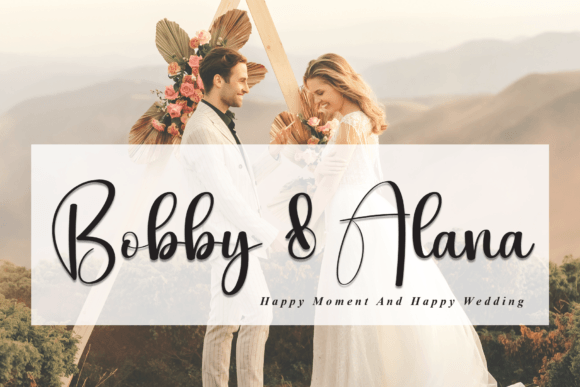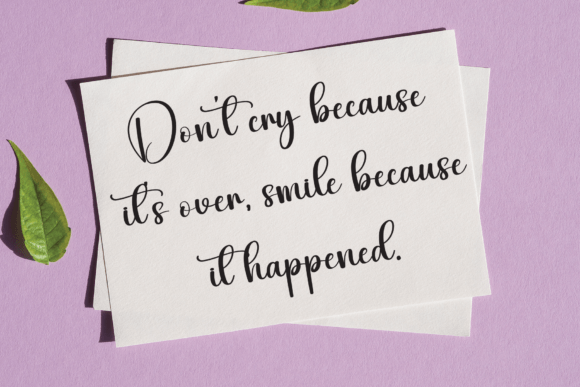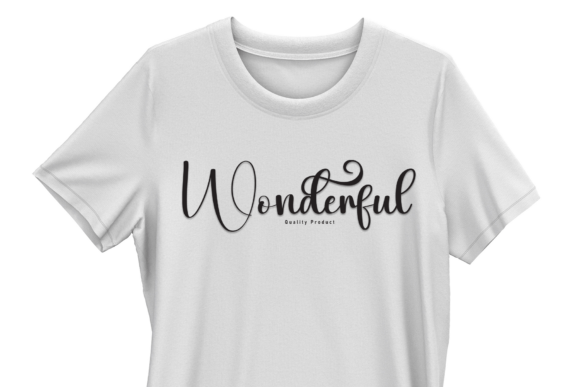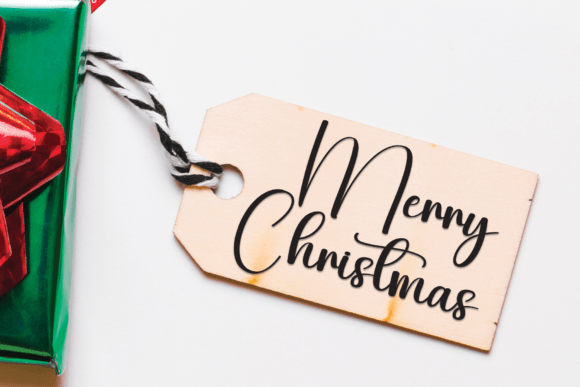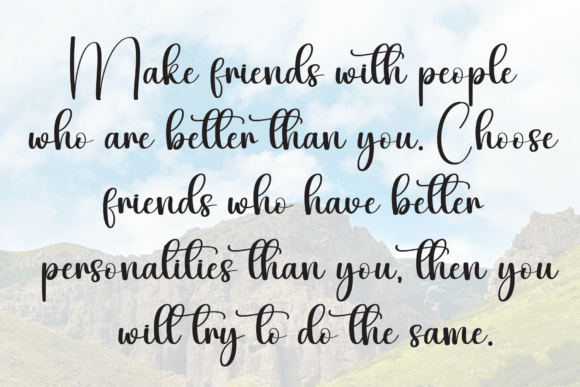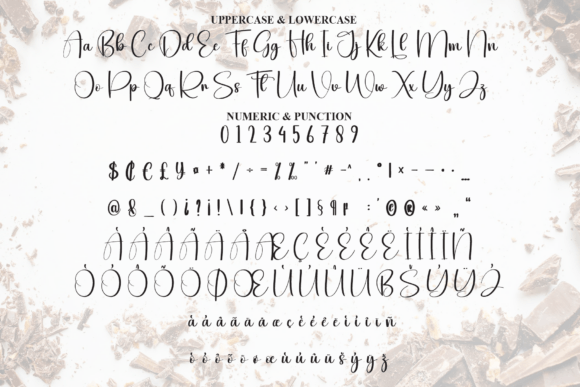
Introducing Chocolate Black Font: The Ultimate Display Font for Warmth and Whimsy
Are you looking for a font that can add a touch of warmth and friendliness to your designs? Look no further than Chocolate Black Font, a charming handwritten display font that’s perfect for creating lighthearted and whimsical designs. With its delightful and amusing characteristics, this font is sure to make your creations come alive with its endearingly playful vibe.
What Makes Chocolate Black Font So Special?
Chocolate Black Font is a unique and eye-catching font that’s designed to capture the essence of warmth and friendliness. Its handwritten style gives it a personal and approachable feel, making it perfect for designs that require a touch of personality. Whether you’re creating wedding invitations, personalized cards, or social media graphics, this font is sure to add a dash of fun and whimsy to your designs.
Chocolate Black Font is a versatile font that can be used for a wide range of design projects. Here are just a few ideas to get you started:
- Wedding Invitations: Add a touch of romance and whimsy to your wedding invitations with Chocolate Black Font. Its elegant and playful style is perfect for creating beautiful and memorable invitations.
- Personalized Cards: Create personalized cards for birthdays, holidays, or special occasions with Chocolate Black Font. Its friendly and approachable style is sure to make your cards stand out.
- Social Media Graphics: Add a dash of fun and personality to your social media graphics with Chocolate Black Font. Its playful style is perfect for creating engaging and shareable content.
- Branding and Packaging: Use Chocolate Black Font to add a touch of warmth and friendliness to your branding and packaging designs. Its unique style is sure to help your brand stand out.
Key Features of Chocolate Black Font
Here are just a few key features that make Chocolate Black Font so special:
- Handwritten Style: Chocolate Black Font has a beautiful handwritten style that’s perfect for creating personal and approachable designs.
- Delightful and Amusing Characteristics: This font has a playful and whimsical style that’s sure to add a dash of fun to your designs.
- Lighthearted and Whimsical: Chocolate Black Font is perfect for creating lighthearted and whimsical designs that require a touch of personality.
- Easy to Read: Despite its playful style, Chocolate Black Font is easy to read and understand, making it perfect for designs that require a clear and concise message.
Tips for Using Chocolate Black Font
Here are just a few tips for using Chocolate Black Font in your designs:
- Use it for Headings: Chocolate Black Font is perfect for headings and titles, where its playful style can really shine.
- Pair it with Other Fonts: Experiment with pairing Chocolate Black Font with other fonts to create a unique and eye-catching design.
- Use it for Emphasis: Use Chocolate Black Font to add emphasis to certain words or phrases in your design.
- Experiment with Colors: Don’t be afraid to experiment with different colors and textures to really make your design pop.
In conclusion, Chocolate Black Font is a charming handwritten display font that’s perfect for adding a touch of warmth and friendliness to your designs. Its delightful and amusing characteristics make it perfect for creating lighthearted and whimsical designs that require a dash of fun and personality. Whether you’re a designer, crafter, or DIY enthusiast, Chocolate Black Font is sure to become a favorite in your font collection.